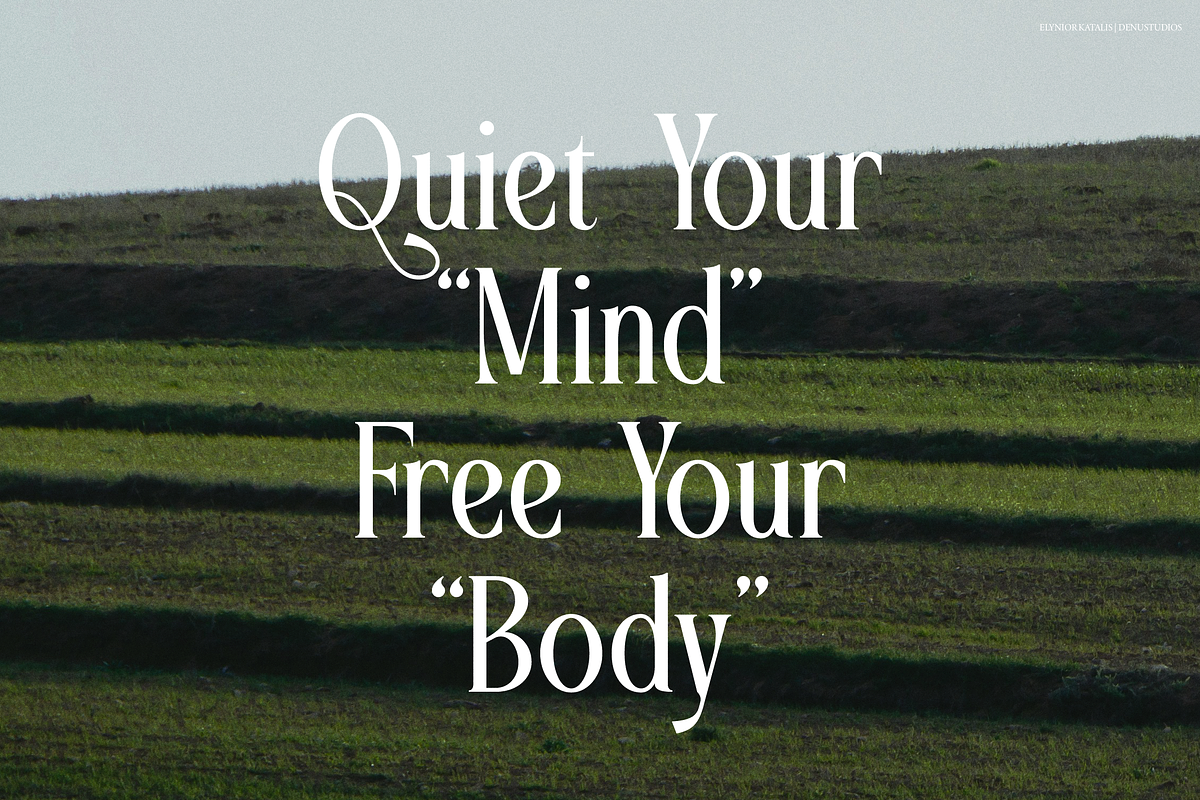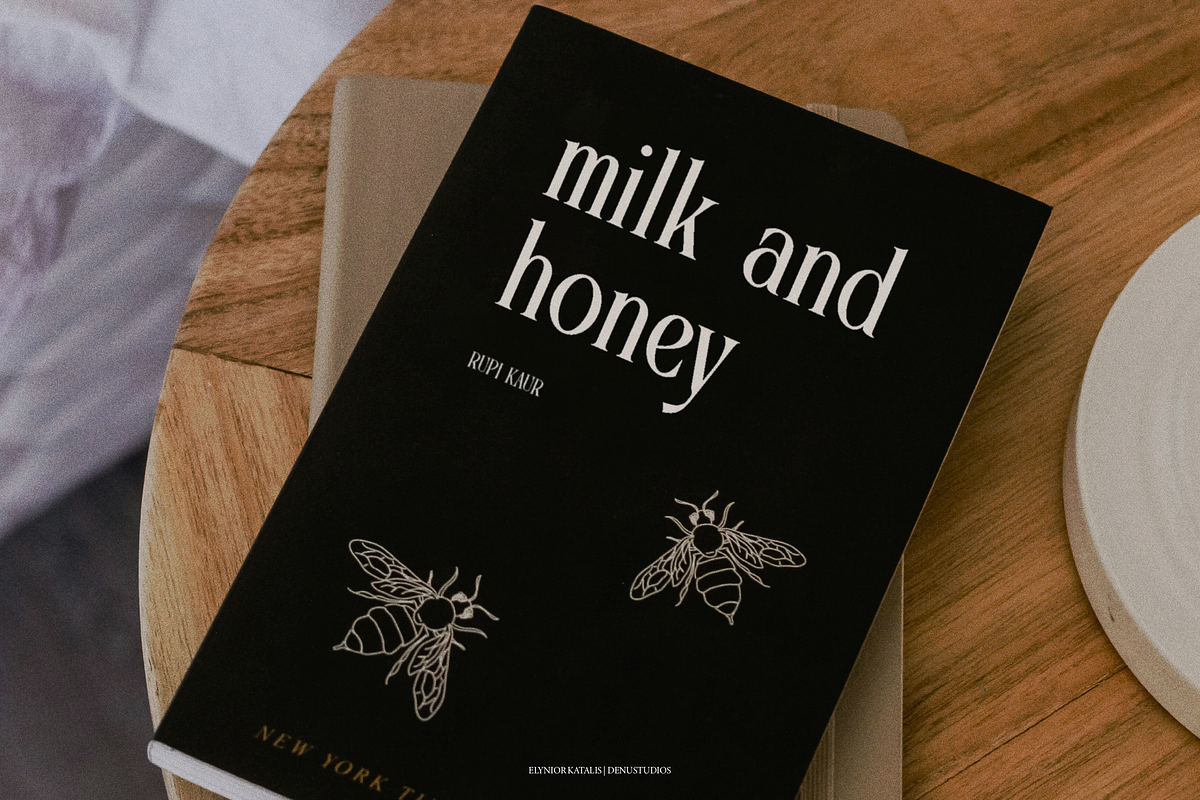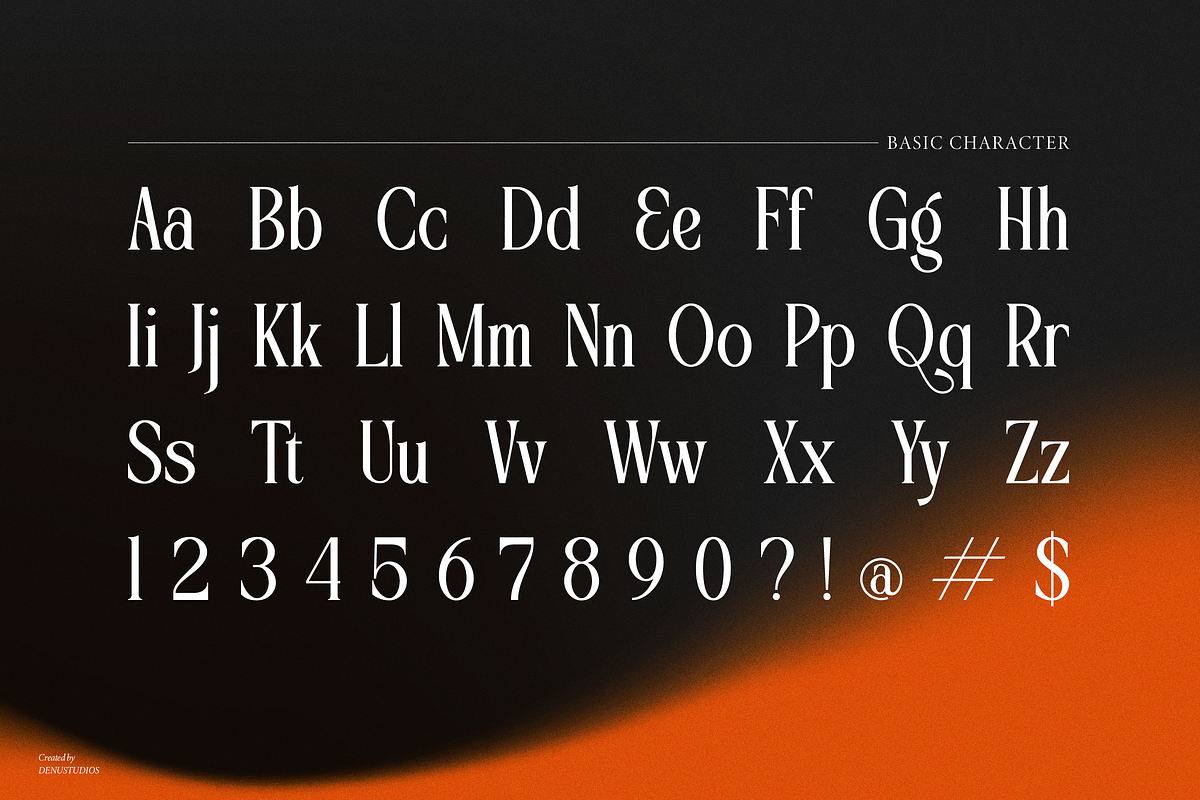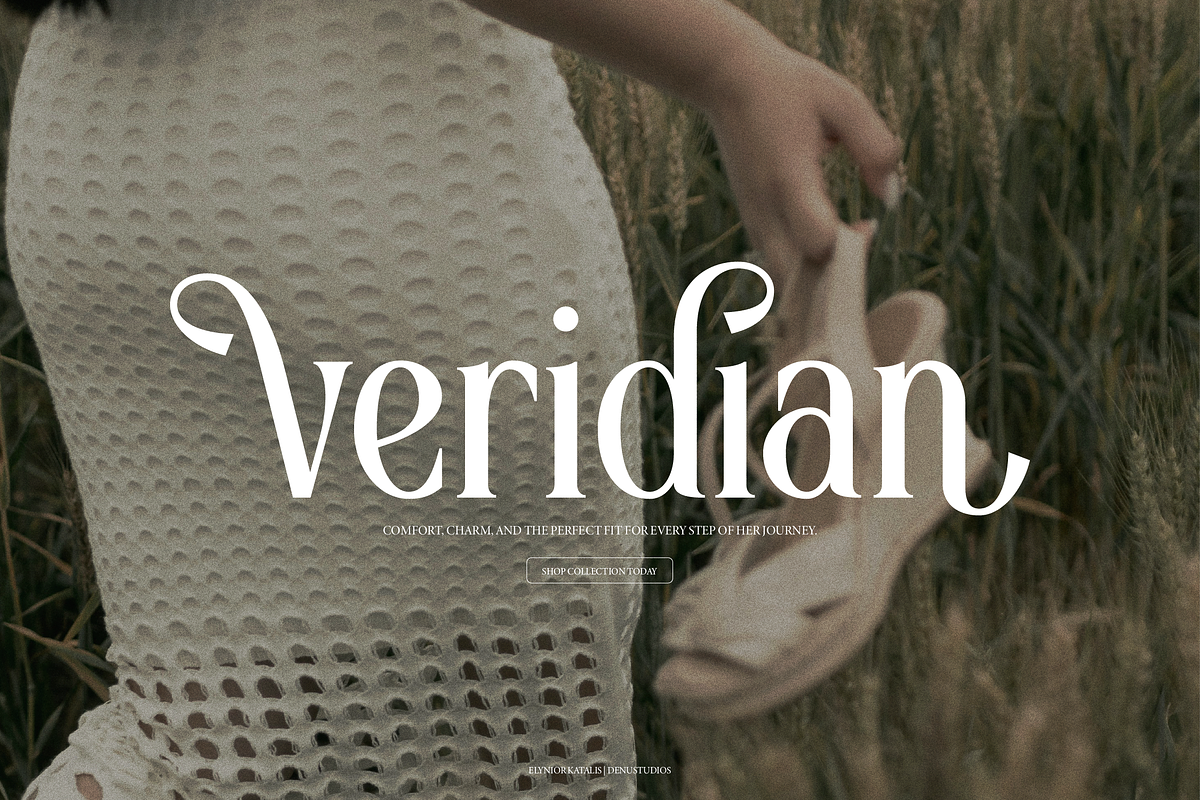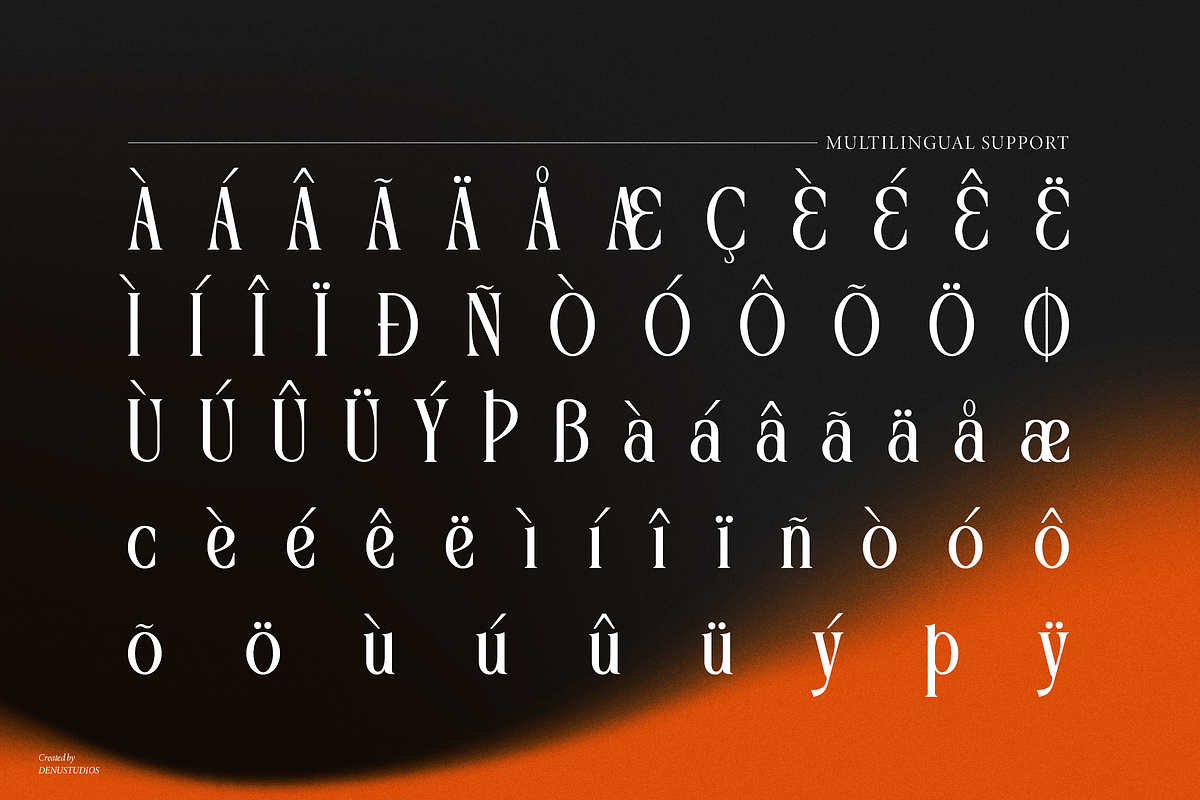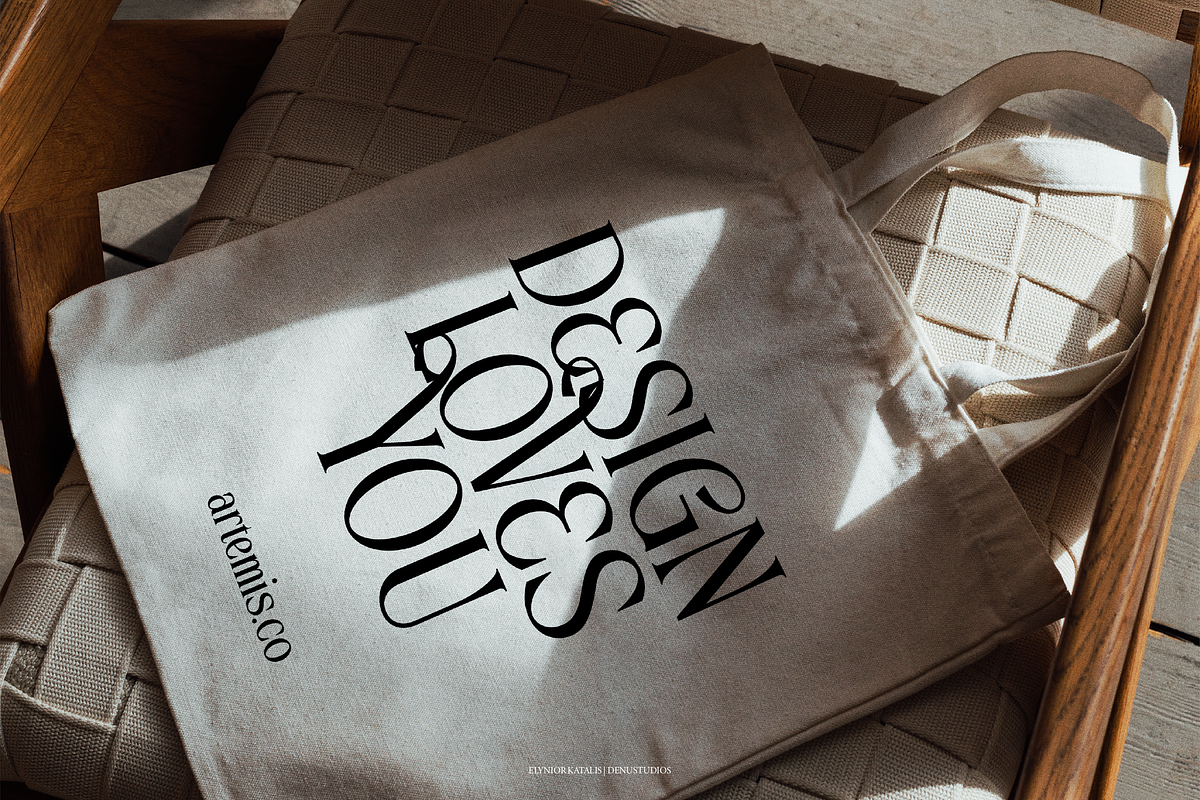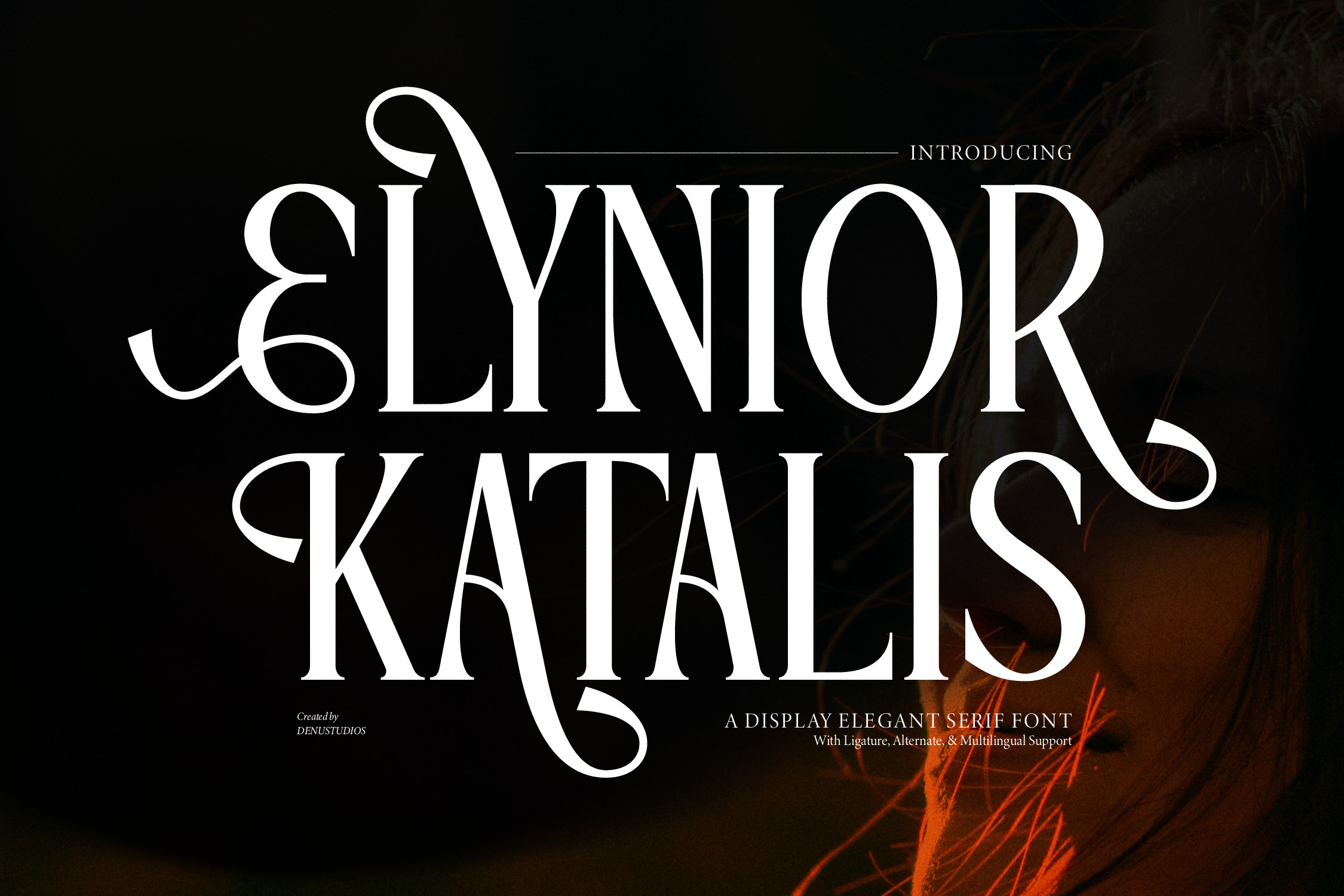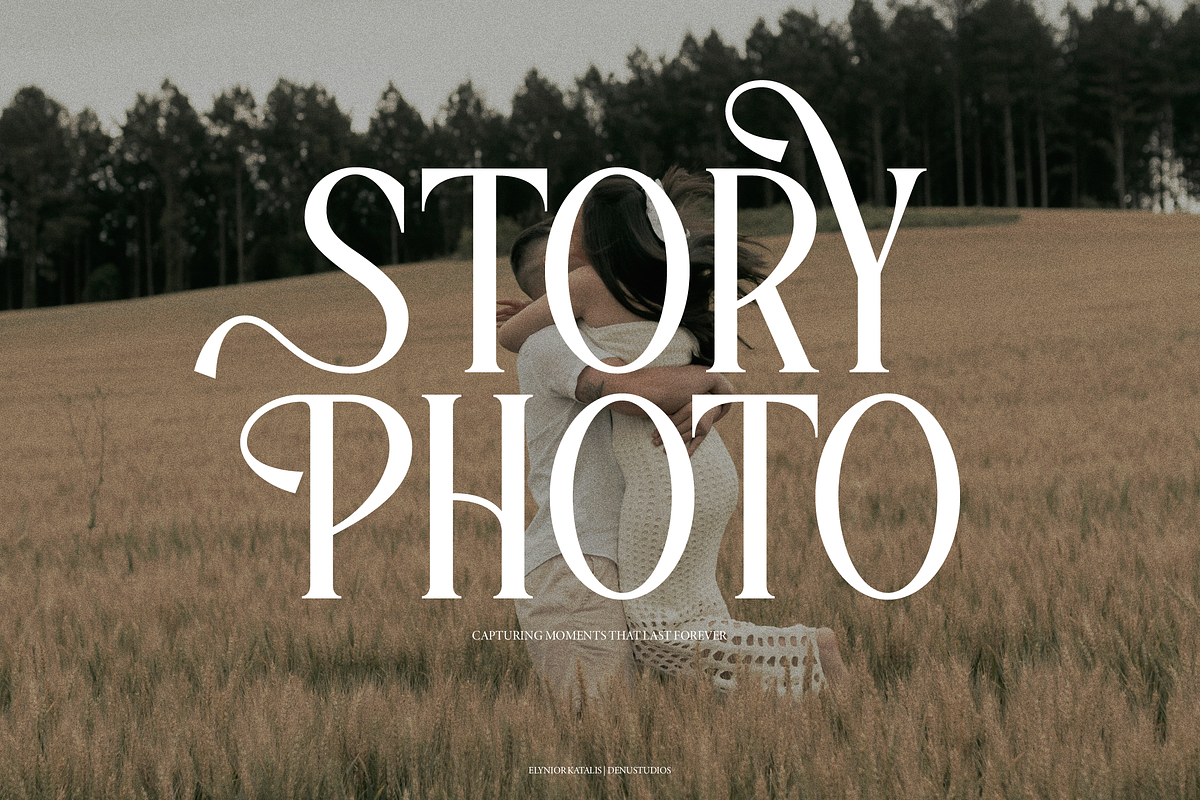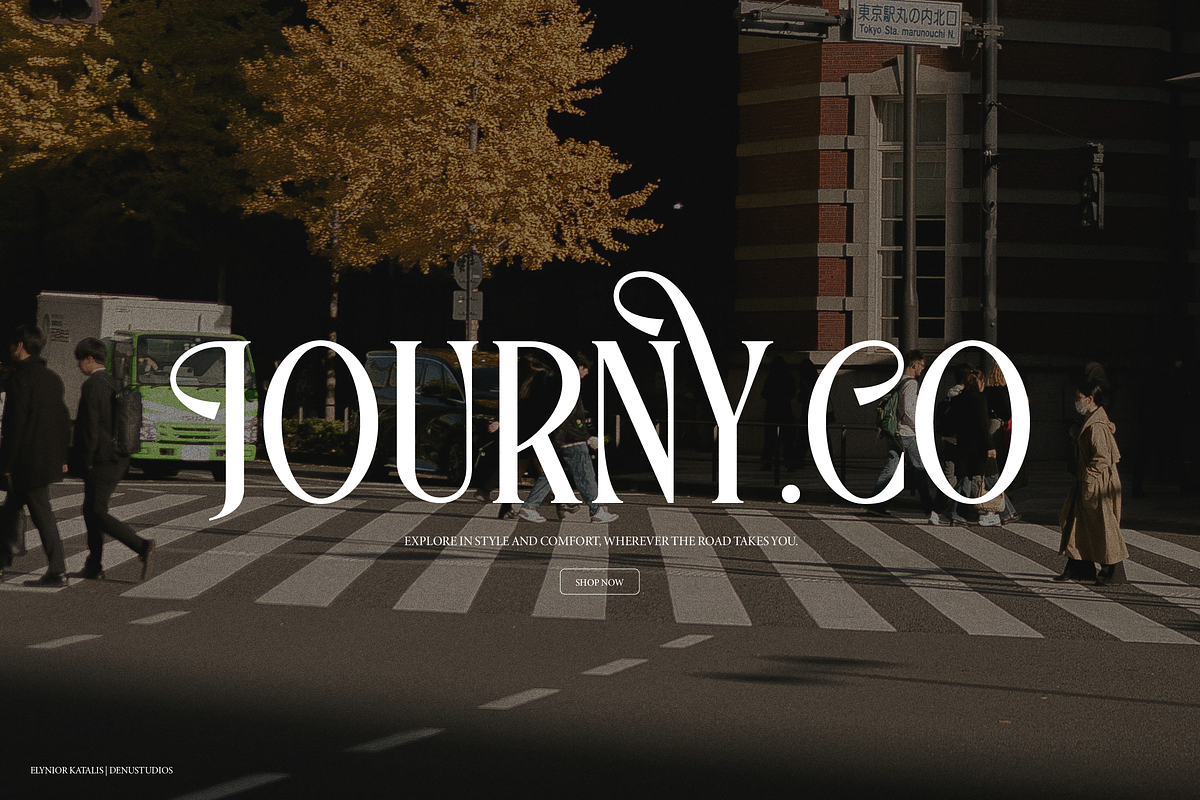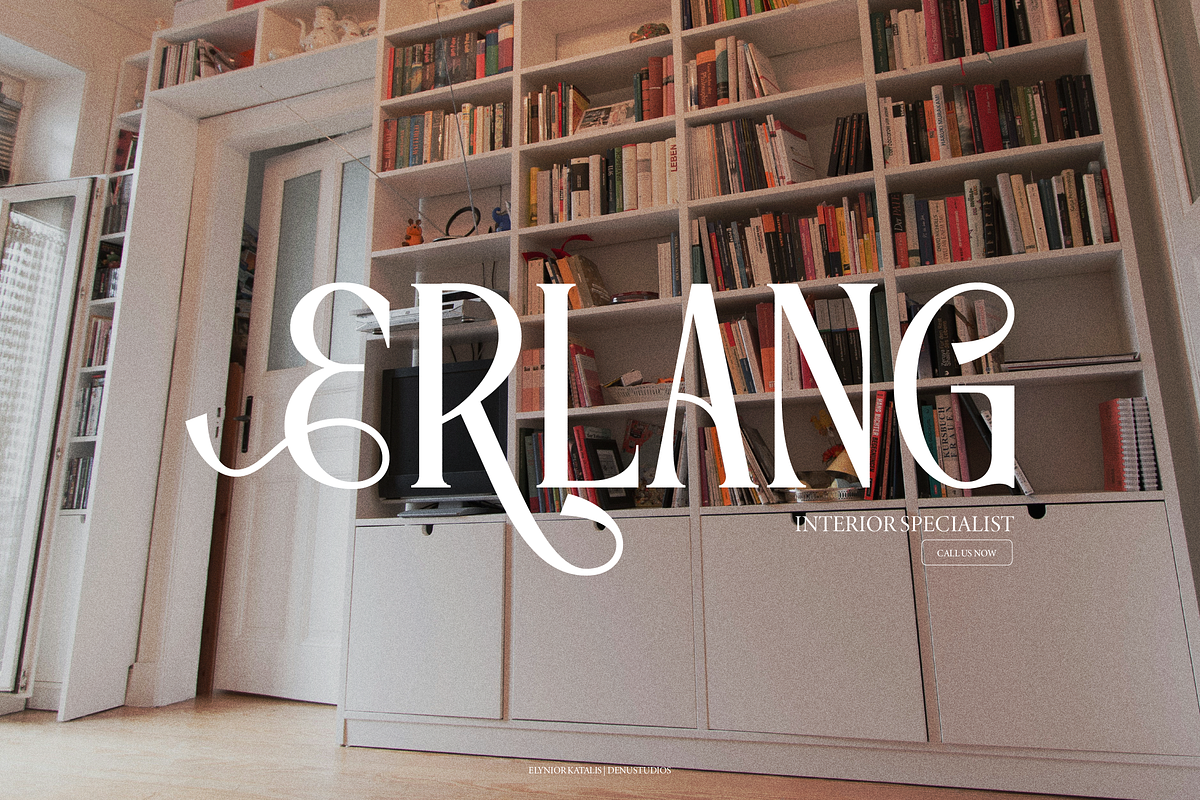
Elynior Katalis Display Elegant Font
Elynior Katalis | Display Elegant Serif, from Denustudios, suitable for any projects such as: logos, branding projects, homeware designs, product packaging, mugs, quotes, posters, shopping bags, t-shirts, book covers, name card, invitation cards, greeting cards, label, photography, watermark, special events, and all your other lovely projects that need a Display Elegant Serif taste.